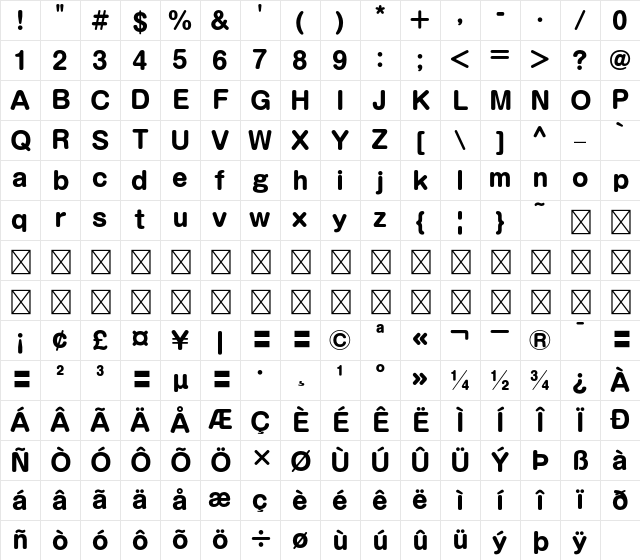
A-OTF Maru Today Std B
Style: B
Designer: Morisawa and Company Limited.
Complete A-OTF Maru Today Std B glyph index. Displaying only characters natively supported by A-OTF Maru Today Std B font.
Design Context for A-OTF Maru Today Std
A-OTF Maru Today Std is a composed and adaptable typeface that performs quietly and consistently across a wide range of design contexts.